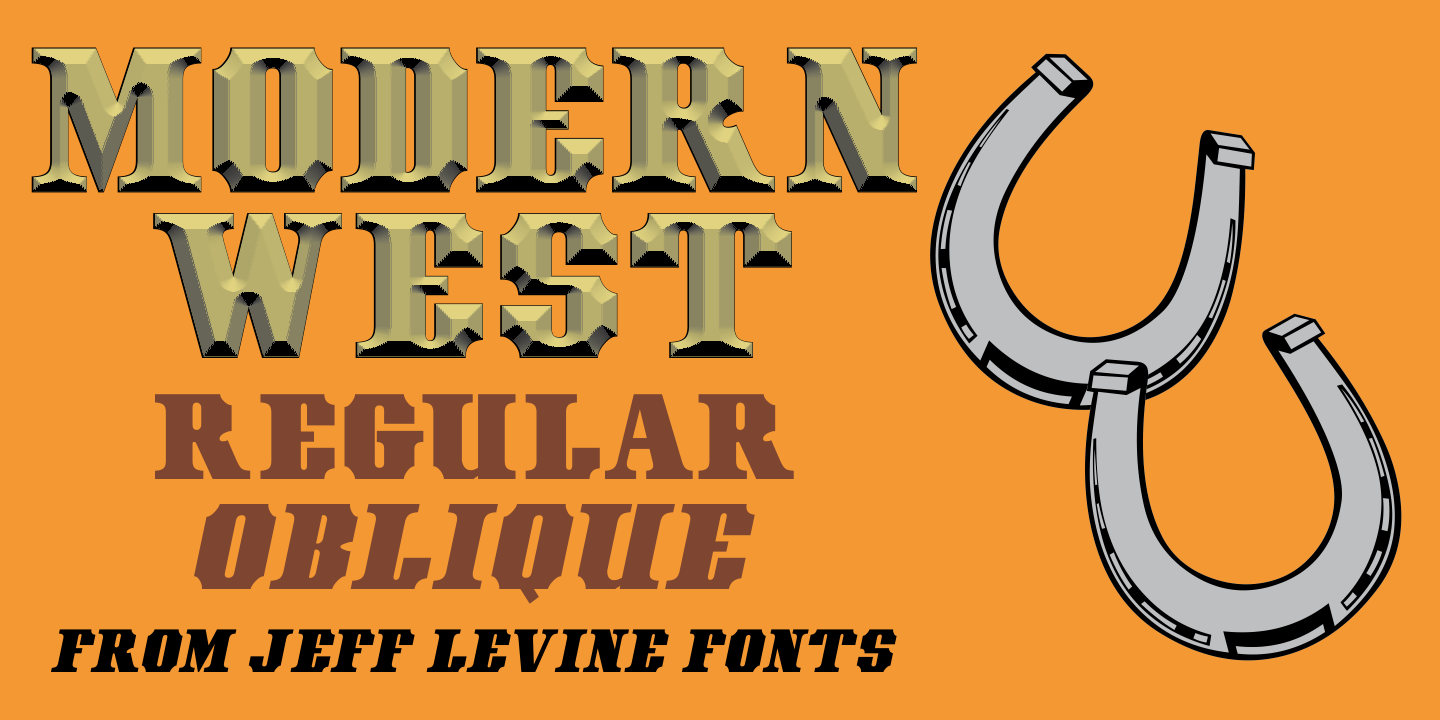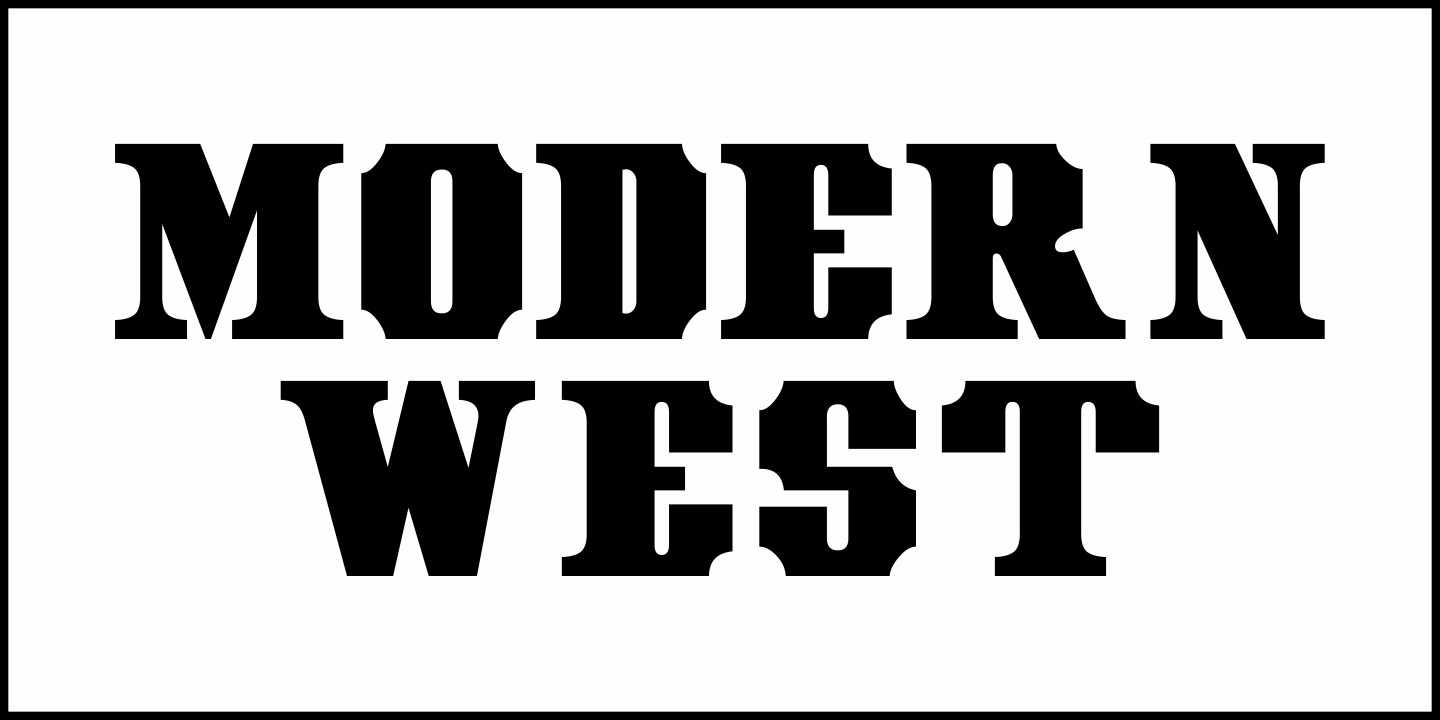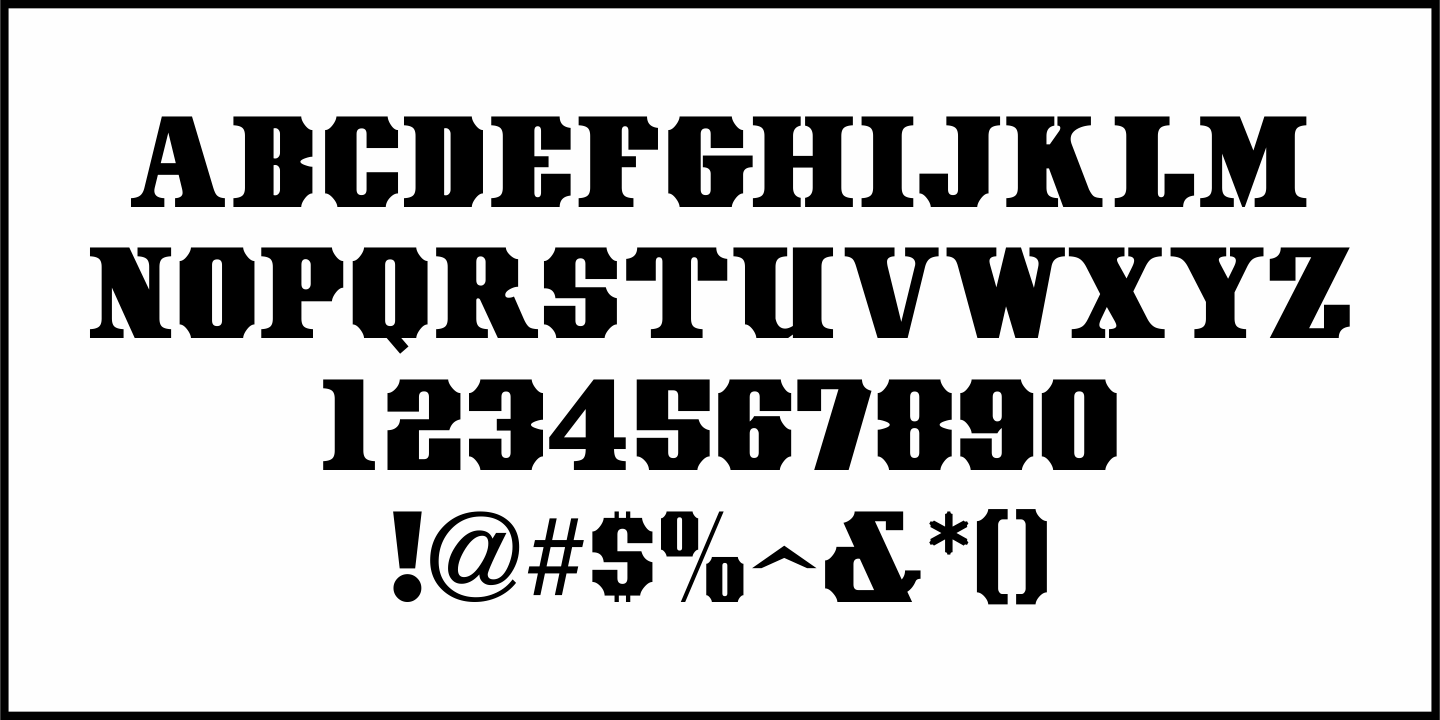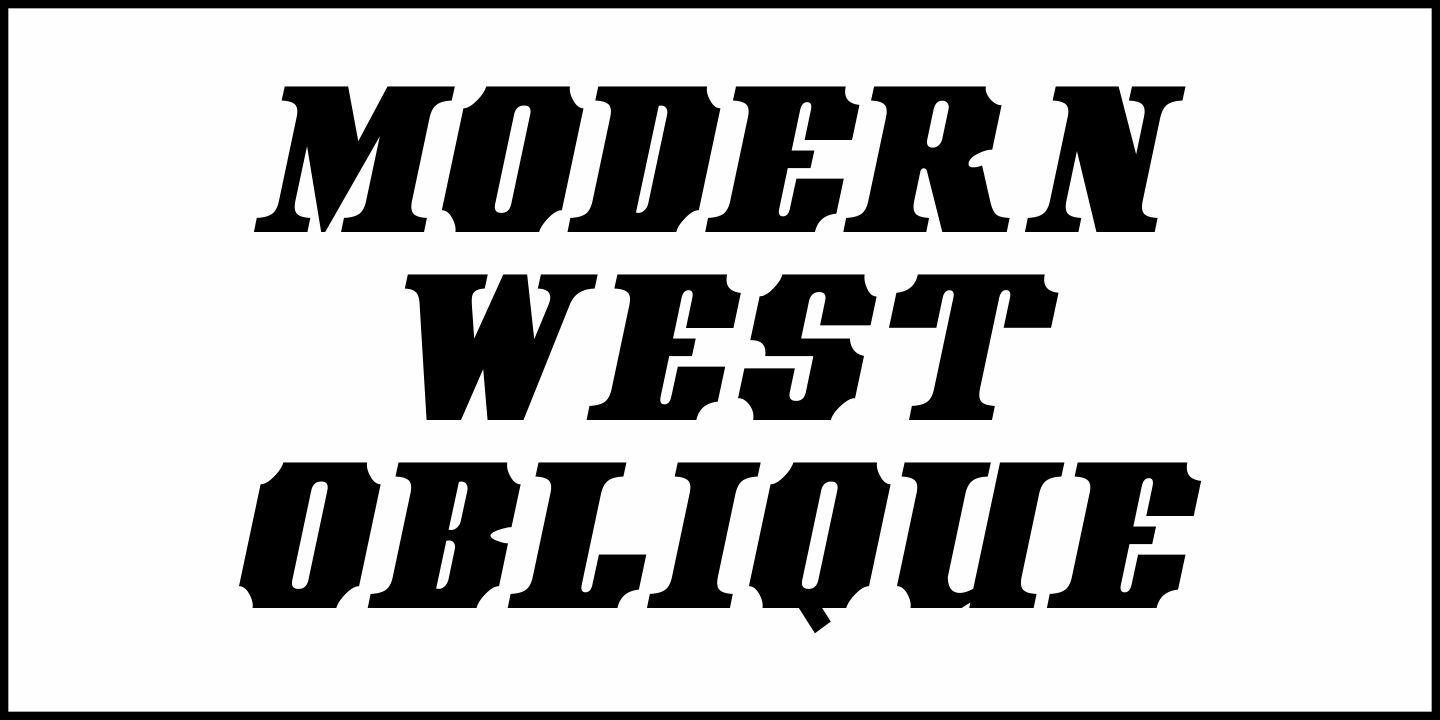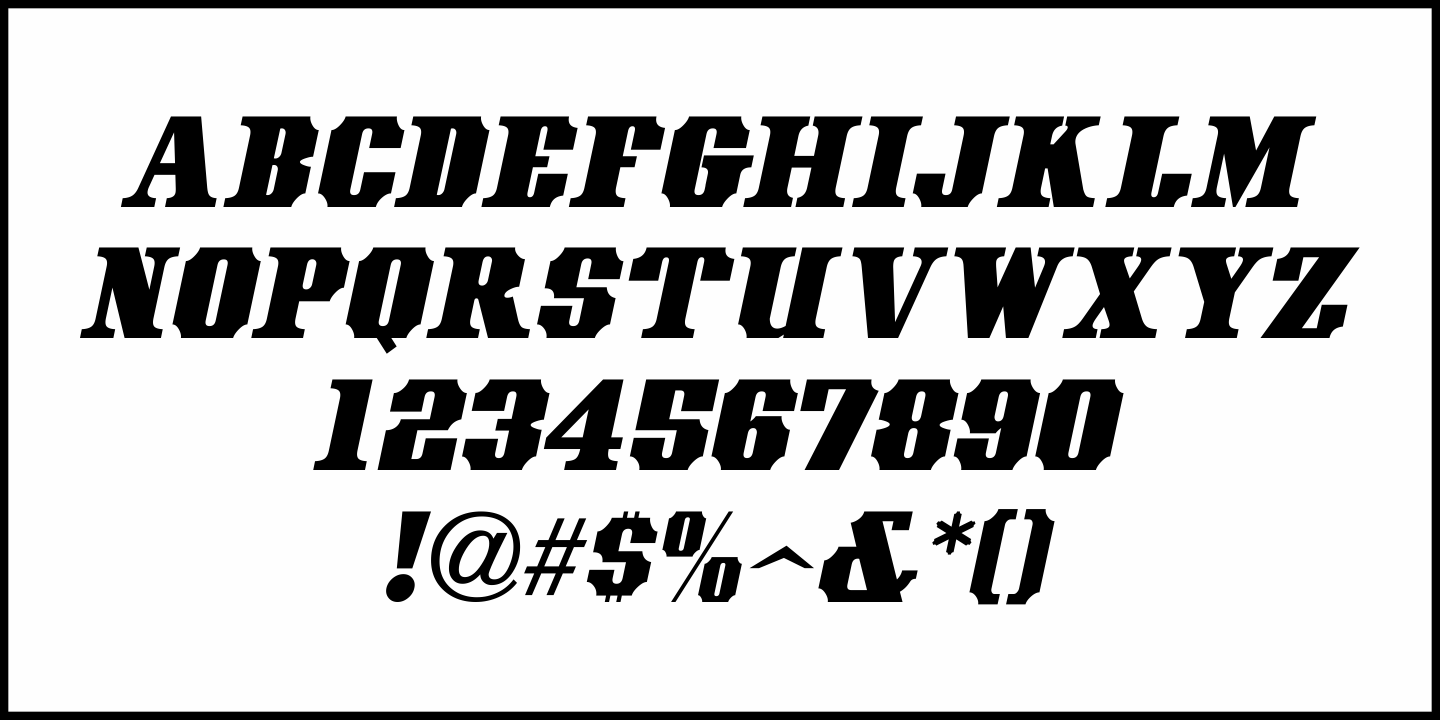
Modern West
Presenting… a Western style alphabet from the 1960 edition of Samuel Welo's 'Studio Handbook for Artists and Advertisers”…
Extra bold, featuring slab serifs and concave corners, this type style could easily have been found on building signage in the Old West… but in redrawing it digitally, it's been named Modern West JNL because at one time, this would have been considered a modern style of lettering.
Modern West JNL is available in both regular and oblique versions.